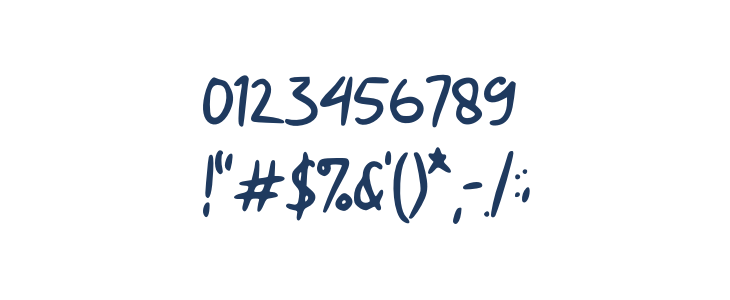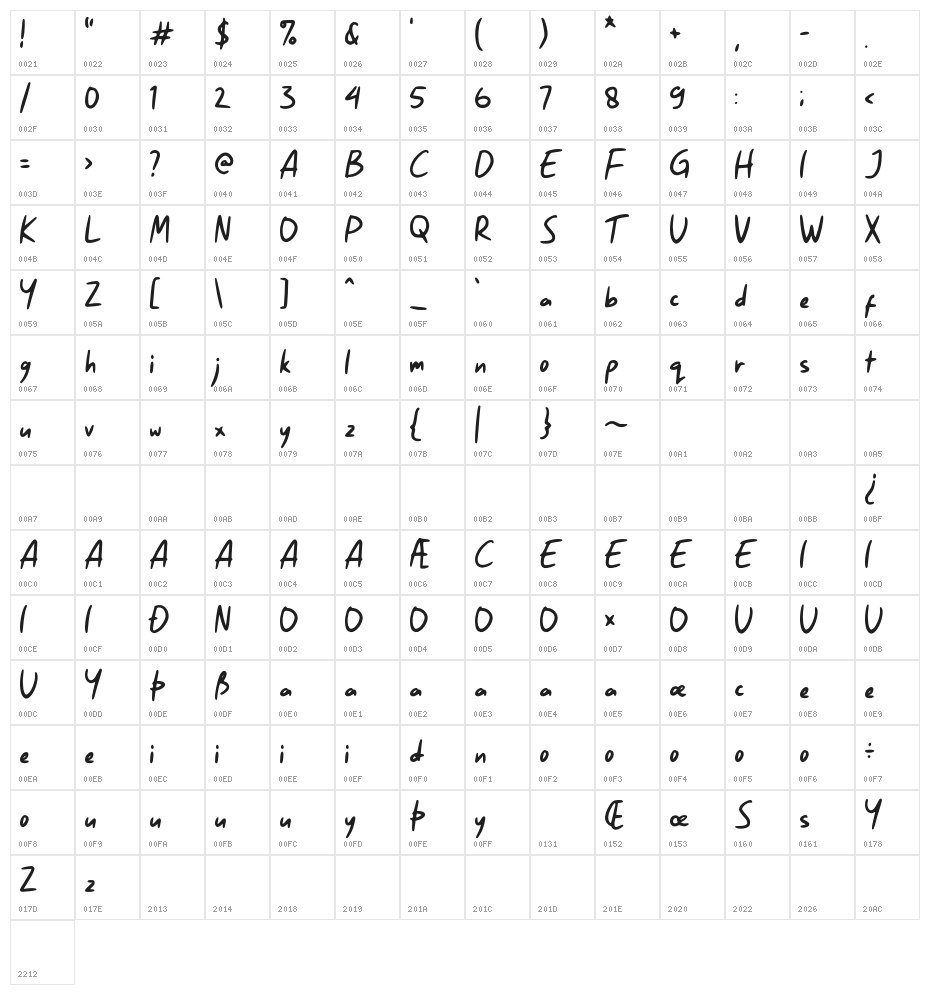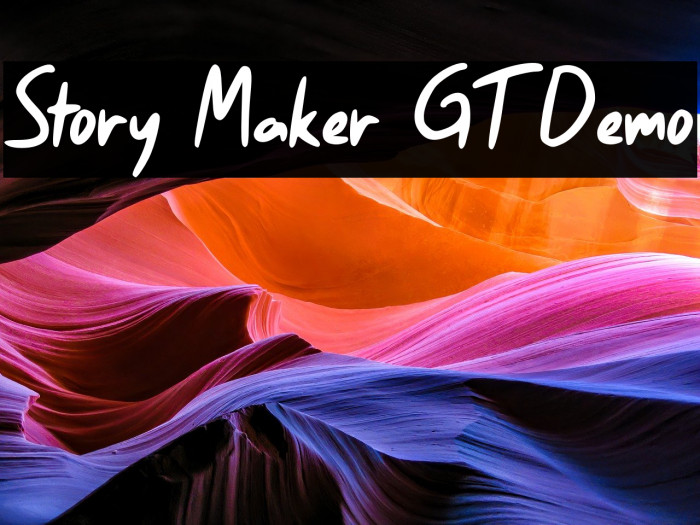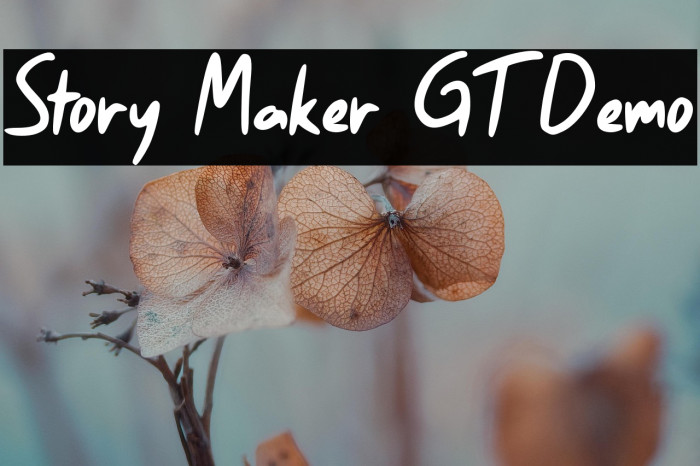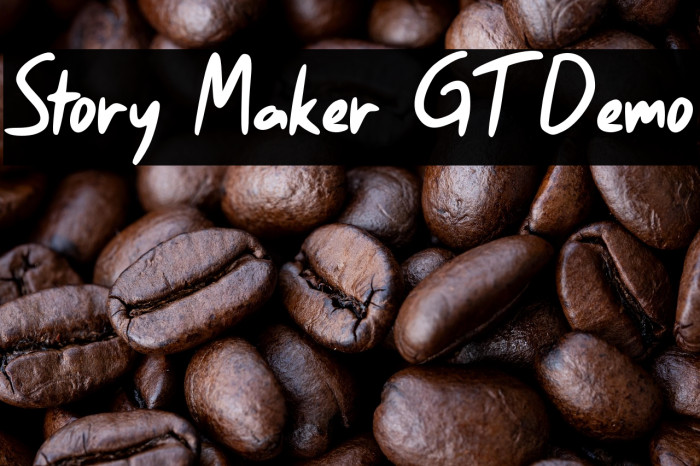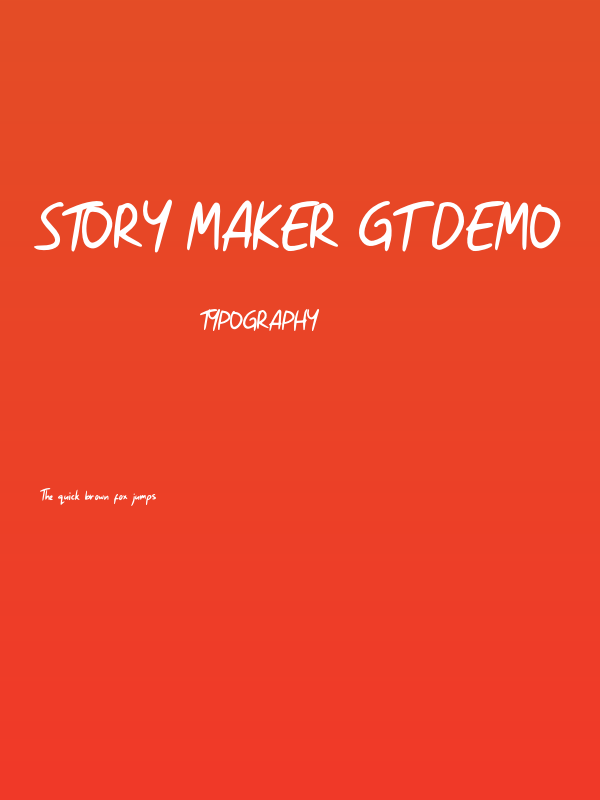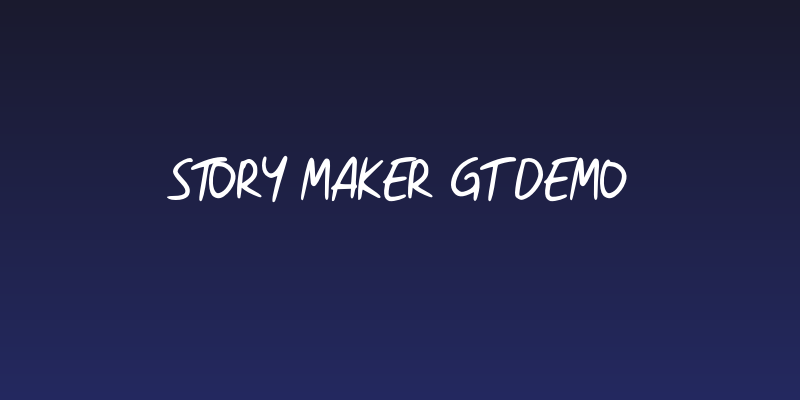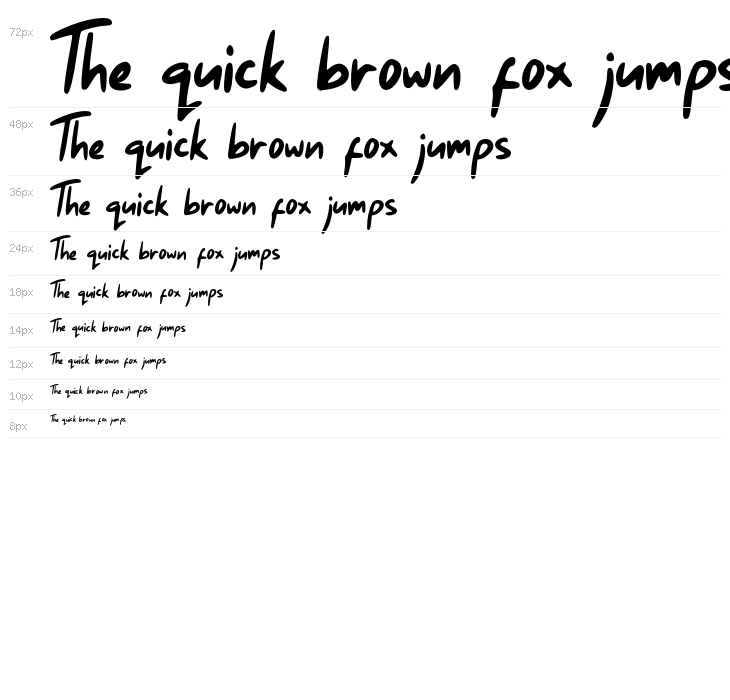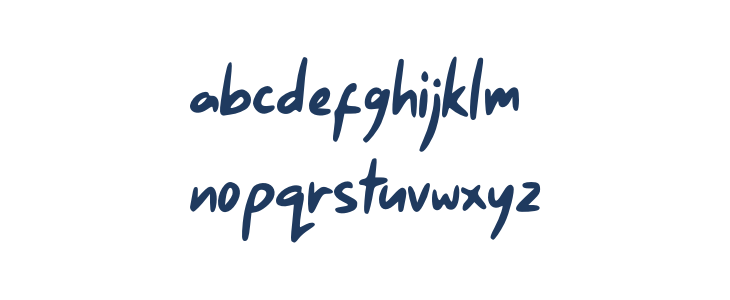
Story Maker GT Demo Font
Story Maker GT Demo Description
This font features a playful and casual handwritten style, characterized by its smooth, flowing lines and slightly irregular shapes that mimic natural handwriting. The letters are slightly slanted, adding to the informal and relaxed feel. The uppercase and lowercase letters maintain a consistent style, with rounded edges and a friendly appearance. Numbers and special characters are crafted with the same playful touch, making them blend seamlessly with the alphabet. This font's overall look is approachable and lively, suitable for projects that require a personal, human touch.
| Use Case | Headlines, Informal text, Personal projects |
| Proposed Projects | Ideal for greeting cards, personal blogs, children's books, and informal branding. |